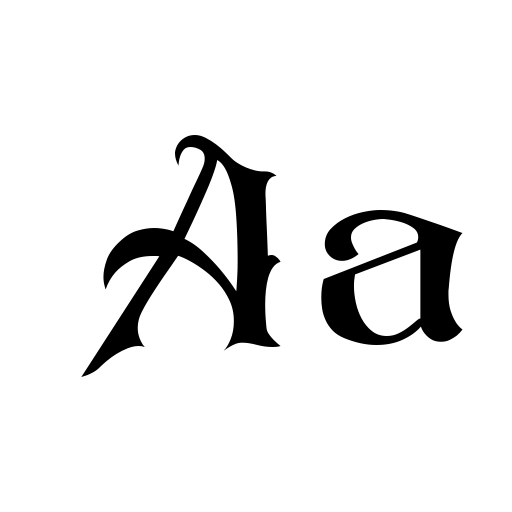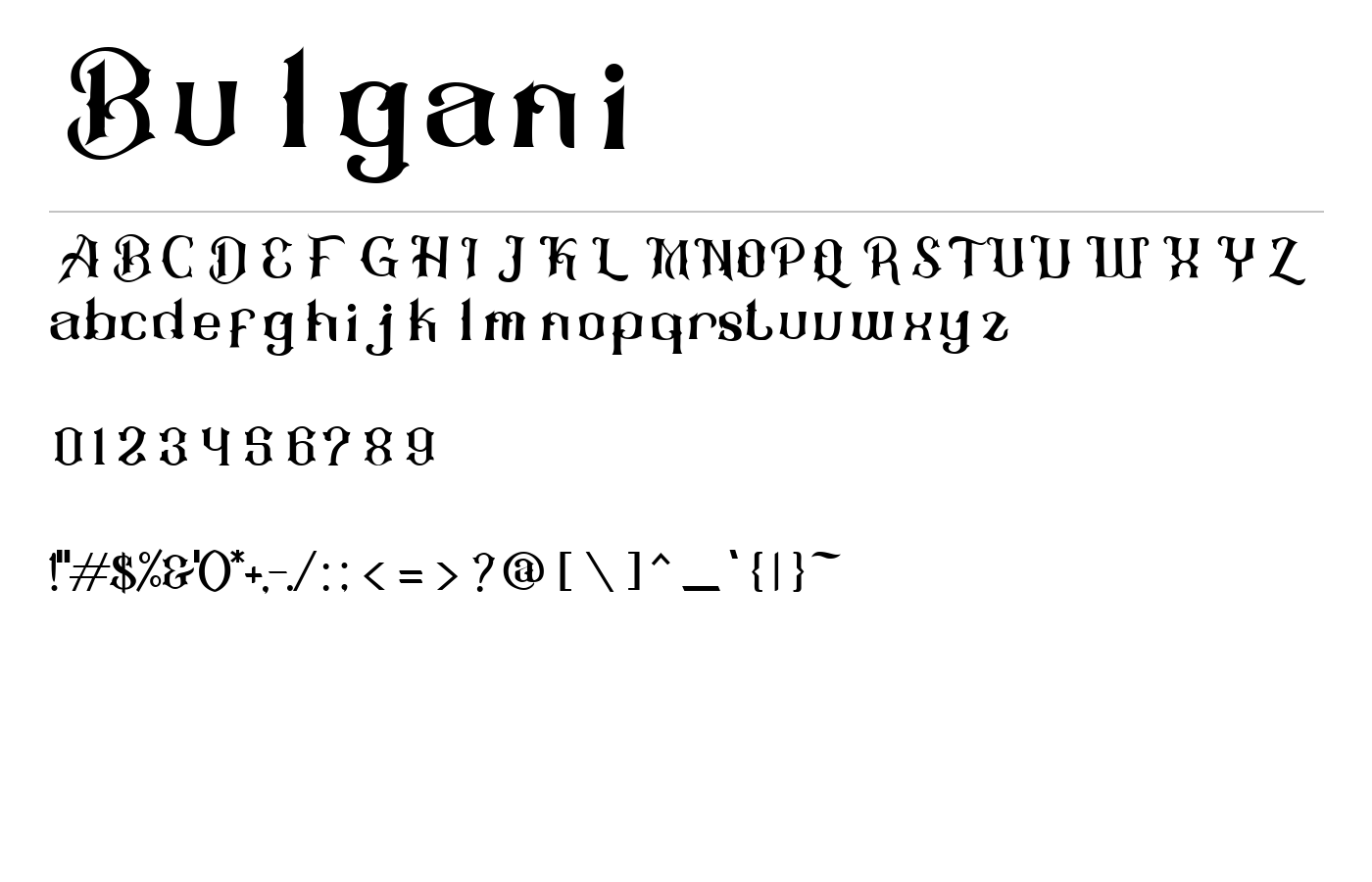
Bulgani is a decorative serif font with a strong Gothic influence, featuring bold, narrow letterforms with sharp, angular strokes and intricate detailing. Its unique style and high contrast make it a perfect choice for dramatic headlines, logos, and branding that aims to convey a vintage, medieval, or luxurious vibe. This font works best where a distinctive, attention-grabbing look is needed, adding personality and elegance to creative design projects.
Bulgani Font
About Bulgani Font
| Font family | Bulgani Font |
| Designer | Faras Dina |